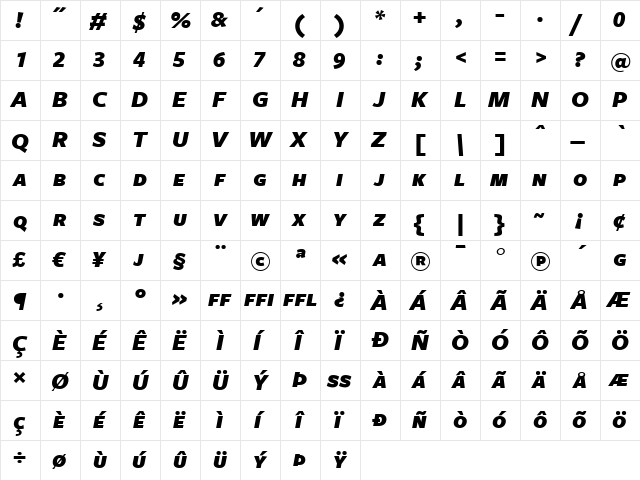
FreightSans BlackItalicSC
| Foundry | Joshua Darden & Phil's Fonts, Inc |
| Designer | Joshua Darden |
Design Context for FreightSans Typeface
FreightSans takes a measured approach to typography — its balanced proportions and neutral character make it a reliable workhorse for both digital and print work. Its italic angle brings a sense of urgency and motion to the letterforms.